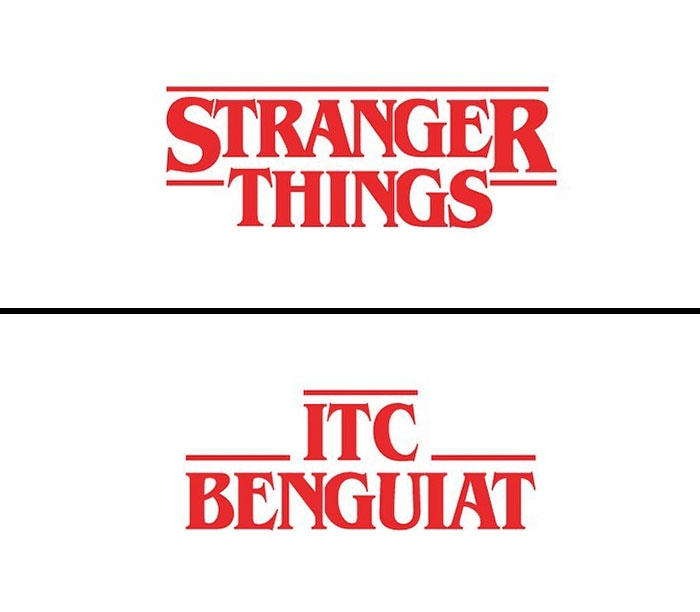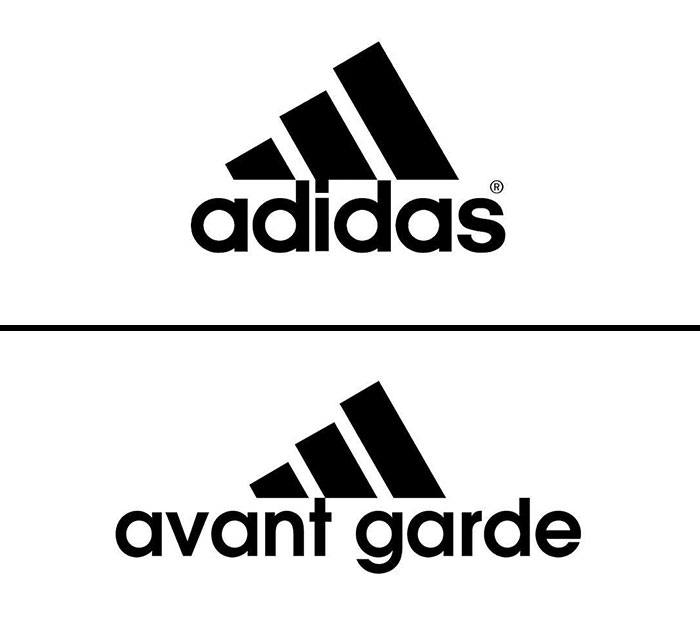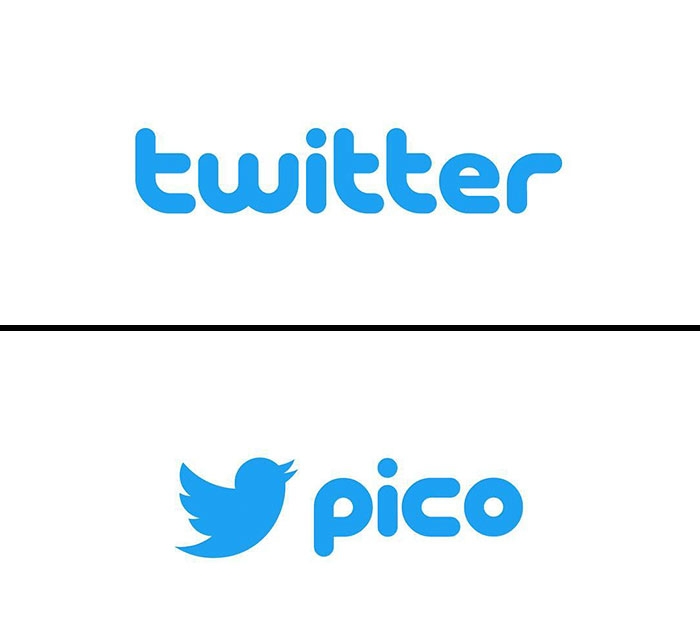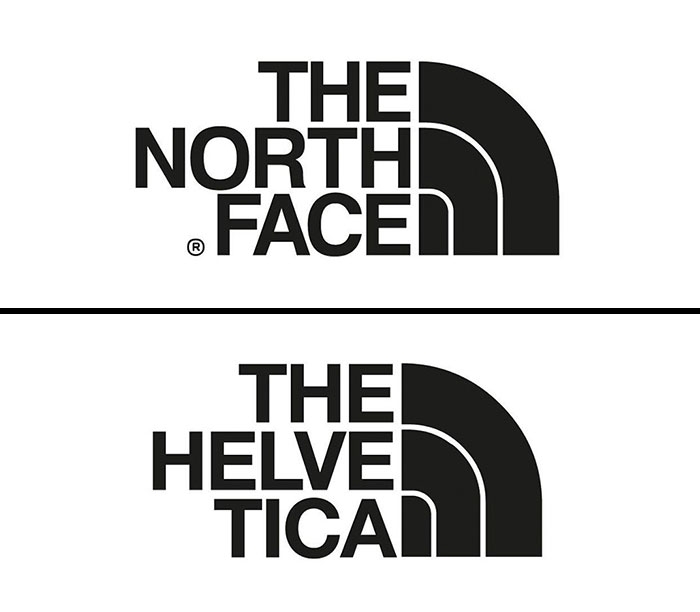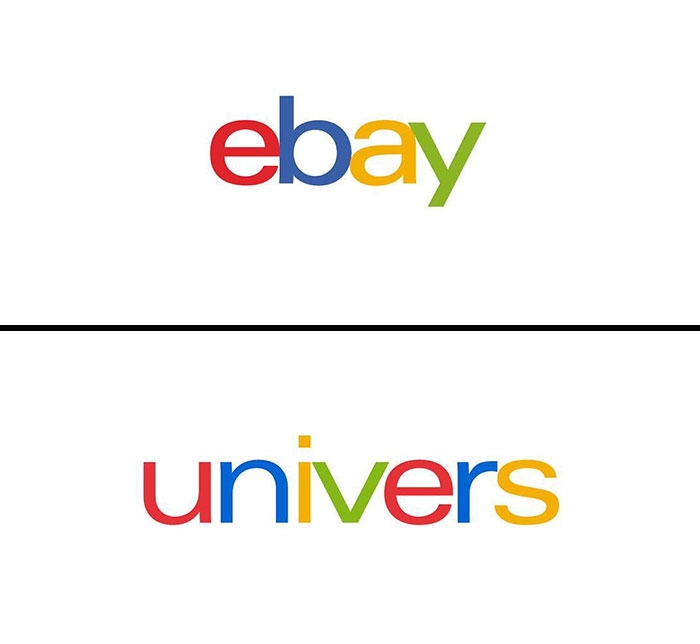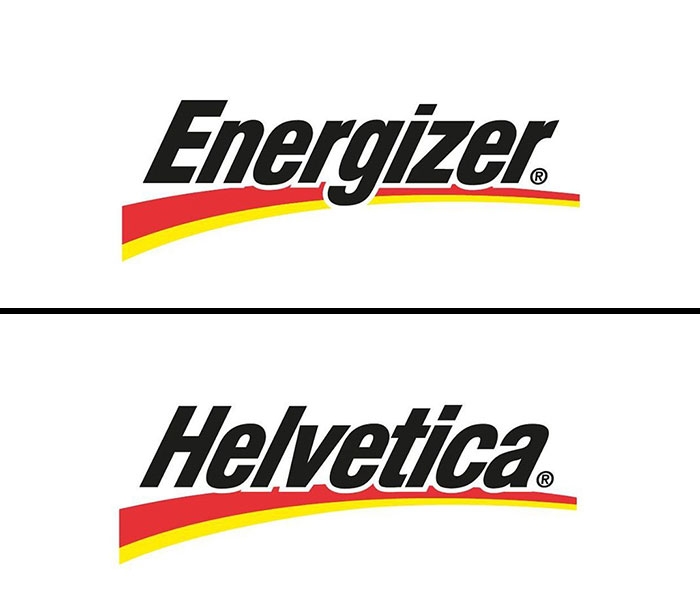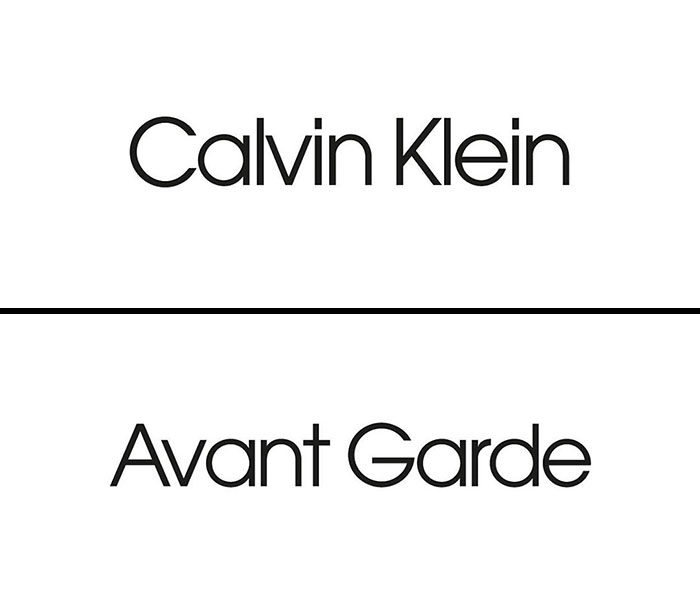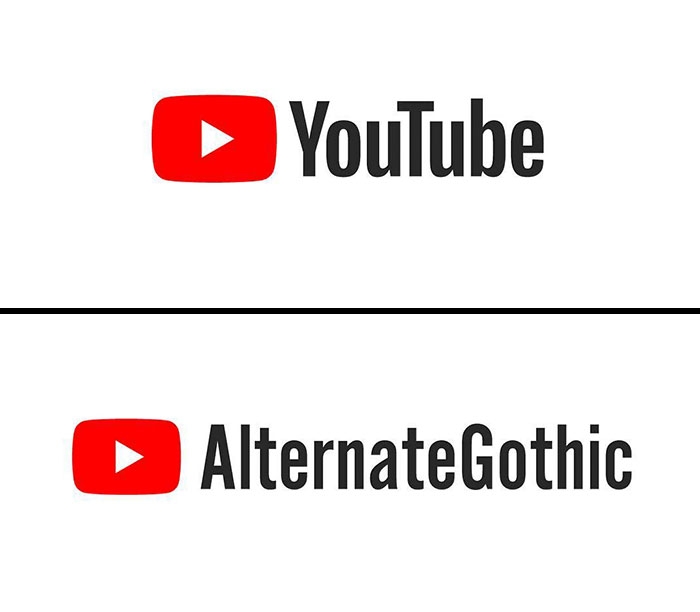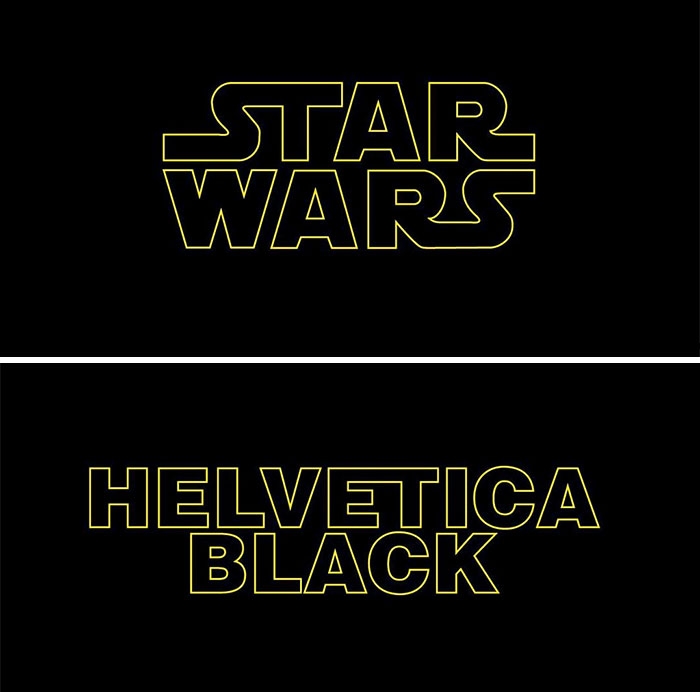
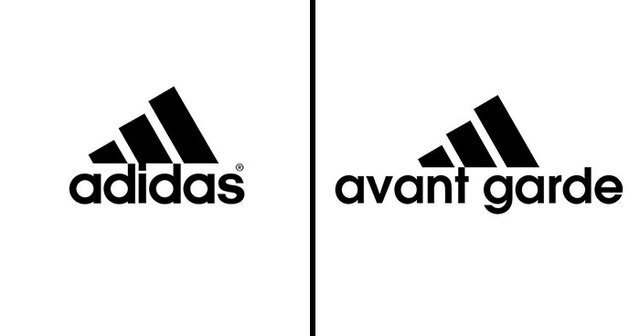
20 Famous Logos And The Fonts They Use Revealed By Italian Graphic Designer Emanuele Abrate
Italian graphic designer Emanuele Abrate redesigned some famous logos to show the fonts they use.
We see hundreds of different logos every day - on your phone, your t-shirt, your hat - and rarely give them much thought - they're kind of just there. However, Italian graphic designer Emanuele Abrate decided to analyze them a little more in a project he calls Logofonts.
In his project, Emanuele gives famous logos a little twist - instead of making them say the company name, he makes the logos say the fonts they use. In a recent interview with Bored Panda, the designer said he came up with the idea rather spontaneously by browsing the questions most frequently asked by graphic designers. He noticed that one of the most common questions was which font was used. That's when he decided to create a project that would answer this question in a simple and immediate way.
Emanuele says that many famous logos use custom typography designed from scratch and that his goal is to find out which font is used as the base and then modify it to get the final result. "For this, I do a search by consulting the brand manuals and then visually comparing the original font with the logo. I also often use tools like 'whatthefont.' I always try to be as precise as possible,” said the designer.
“The font is very important because typographic forms are able to generate emotional sensations in the observer and can represent a highly distinctive element in a logo: think of the Coca-Cola logo or the Instagram logo,” said Emanuele.
Emanuele gave some advice to aspiring graphic designers: “Do you want to express luxury? Then better a serif font or an elegant script. Do you want to express innovation? Then a sans serif and neutral typography may be the right choice.” He also added that the biggest mistake a brand can make when choosing the font is relying on their own or the customer's taste. “I love Futura, but when I design, I put my personal tastes aside in favor of the concept I want to enhance,” said the designer.